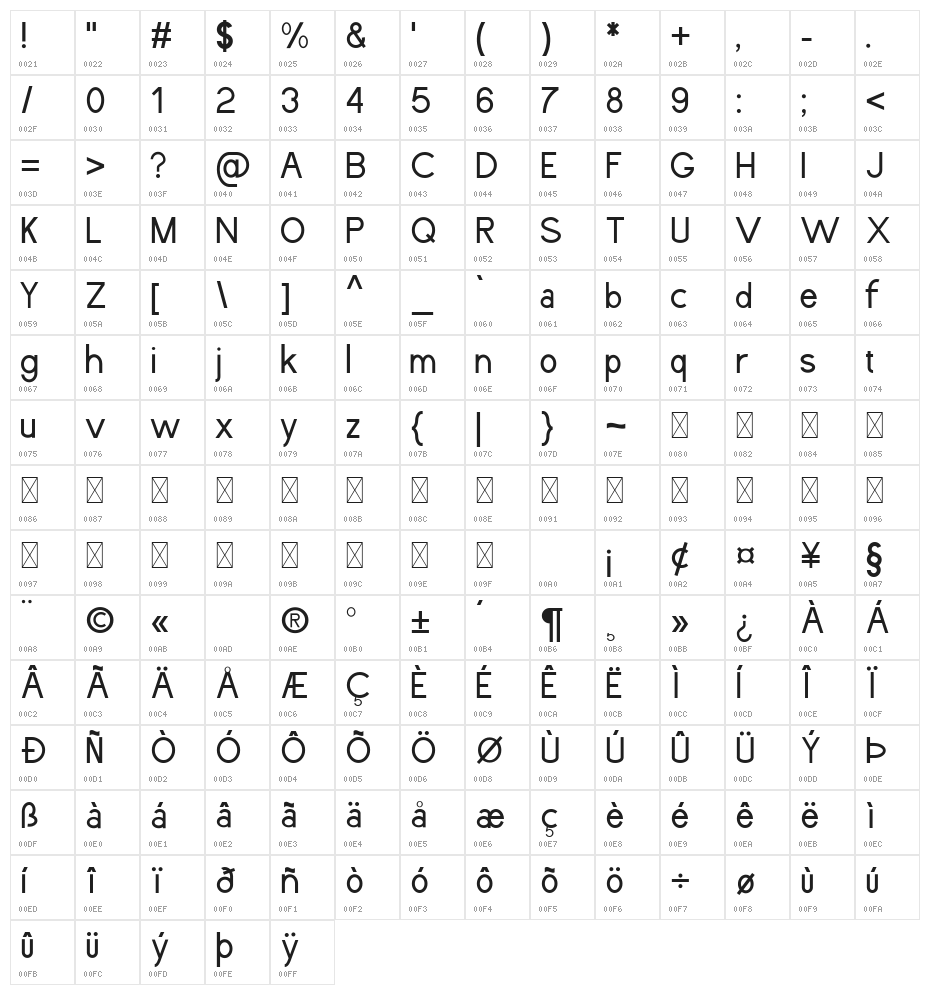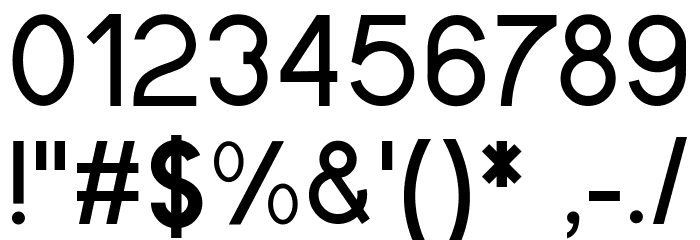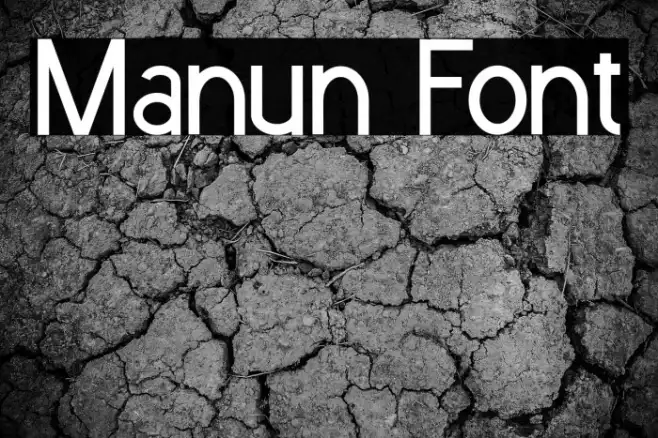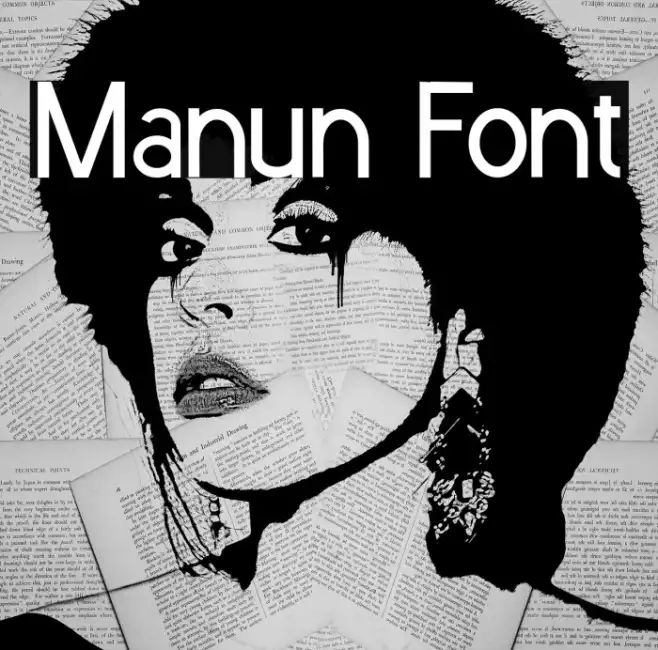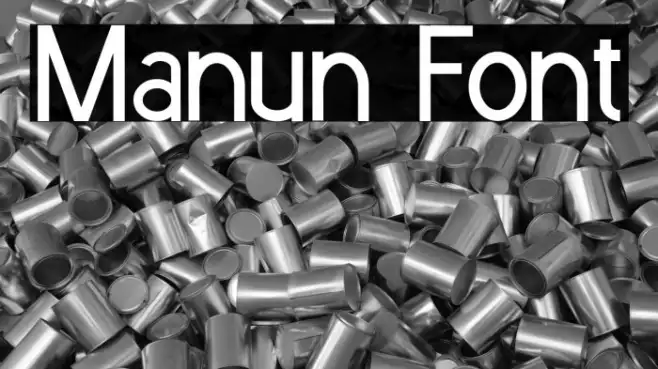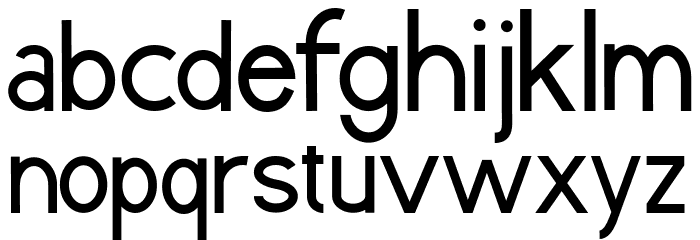
Manun Font
Manun Description
This font is a modern sans-serif typeface characterized by its clean and minimalist design. The letters are uniform in weight, providing a balanced and harmonious appearance. The uppercase and lowercase characters are well-proportioned, with a slight geometric influence that enhances readability. The numbers are clear and distinct, making them suitable for various applications. The special characters are straightforward, maintaining the overall simplicity of the typeface. This font is versatile, suitable for both digital and print media, and can be used in a variety of contexts due to its neutral yet sophisticated style.
| Proposed Projects | Ideal for branding, web design, editorial layouts, and corporate materials. |